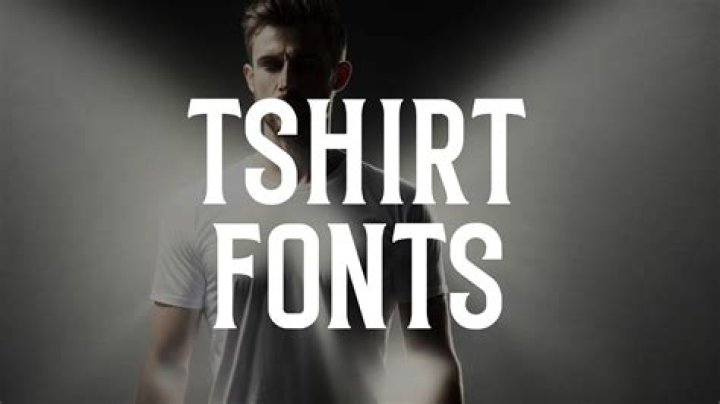
What font looks best on shirts?
The 25 Best Fonts For T-Shirts
- Montserrat. Designing with this Font: Montserrat is a clean, minimal font.
- Graduate. Designing with this Font: Give your shirt a timeless and clean look by arching the Graduate t-shirt font with all capital letters.
- Shrikhand.
- Sue Ellen Francisco.
- Special Elite.
- Archivo Narrow.
- Oswald.
- Sacramento.
What is a good font that looks like a typewriter?
Although Courier is the most well-known font of this kind, there are loads of other, more decorative, typewriter-inspired fonts out there. In this list, we’ve highlighted some of the best paid-for options – for when you need something a bit more special.
What fonts can I use for merch?
Top 25 Free Commercial Fonts For T-Shirt Designs
- Reckless.
- Waterlily.
- Dozen.
- Glamour.
- Reckoner.
- Melma.
- Nickainley.
- Barbaro.
What Microsoft font looks like old typewriter?
The font used in typewriters is \”courier\”.
Are typewriter fonts good for websites?
Typewriter fonts are about as vintage as you can get when it comes to design. With the right font, you can add a dash of nostalgia to your website, and it sets the mood for the type of content visitors should expect. In most cases, we recommend typewriter fonts for blog designs and personal websites.
What is the name of the typewriter with thick letters?
If you know your typewriters, you’ll recognize the Remington Riviera name. On top of being a stylish font, Remington Riviera is the name of a popular model of typewriter. The Riviera stood out thanks to the thick letters it produced, and this font replicates the style.
What fonts look like old typewriters?
Out of the fonts we’ve seen so far, Hammer Keys is the one that comes the closest to capturing the style of an old typewriter. The font’s style is thin and almost fragile, which doesn’t make it a good option for small text.
What are the best fonts for a blog logo?
On top of being a stylish font, Remington Riviera is the name of a popular model of typewriter. The Riviera stood out thanks to the thick letters it produced, and this font replicates the style. Plus, it even adds a few smudges to complete the effect, and it’s an excellent option for a blog logo.